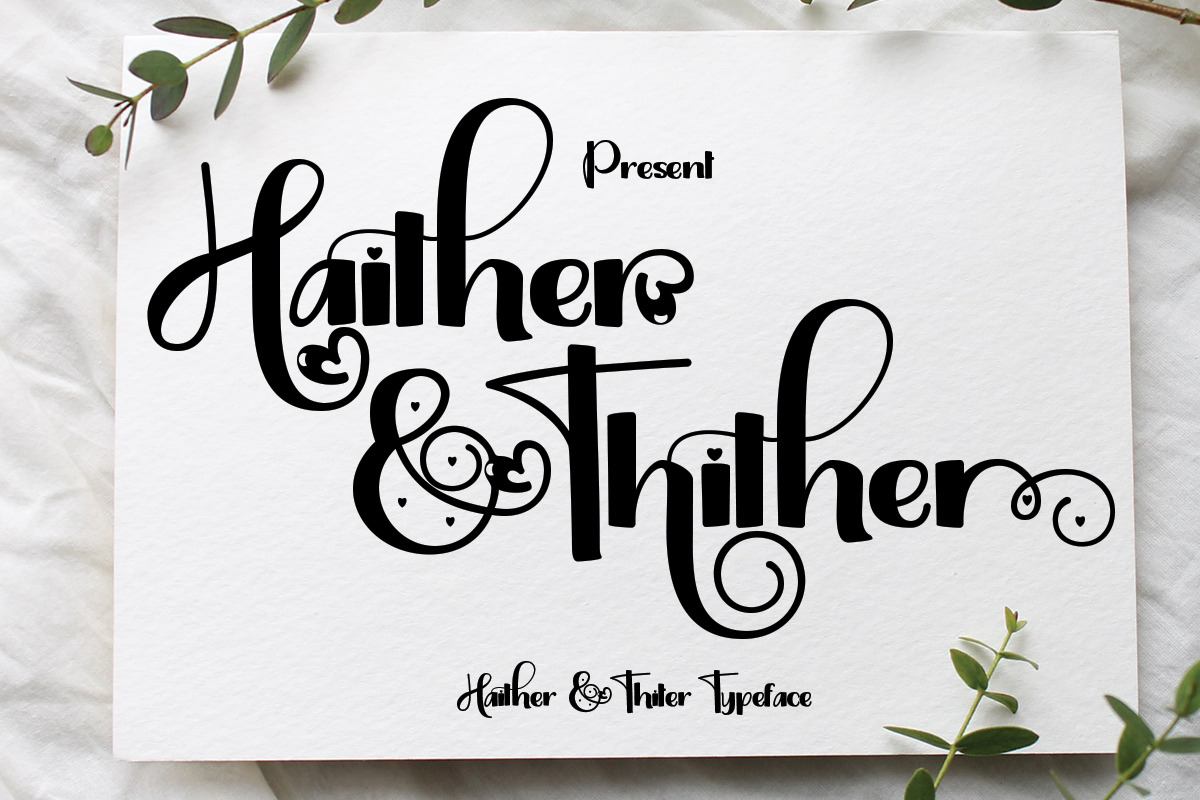
Haither & Thiter Font Free Download is a stylish and modern typeface that blends elegance with a creative twist. Perfect for branding, logos, invitations, social media graphics, and editorial layouts, this font brings a sophisticated yet approachable feel to your projects. Its smooth curves and unique letterforms make it a standout choice for designers who want to add a personal, hand-lettered vibe to their work.
Whether you're crafting wedding materials, boutique branding, or lifestyle blog headers, Haither & Thiter adapts beautifully to both digital and print formats. You can try it out for free to see how it fits your style, but remember—a commercial license is required if you plan to use it professionally or for profit.